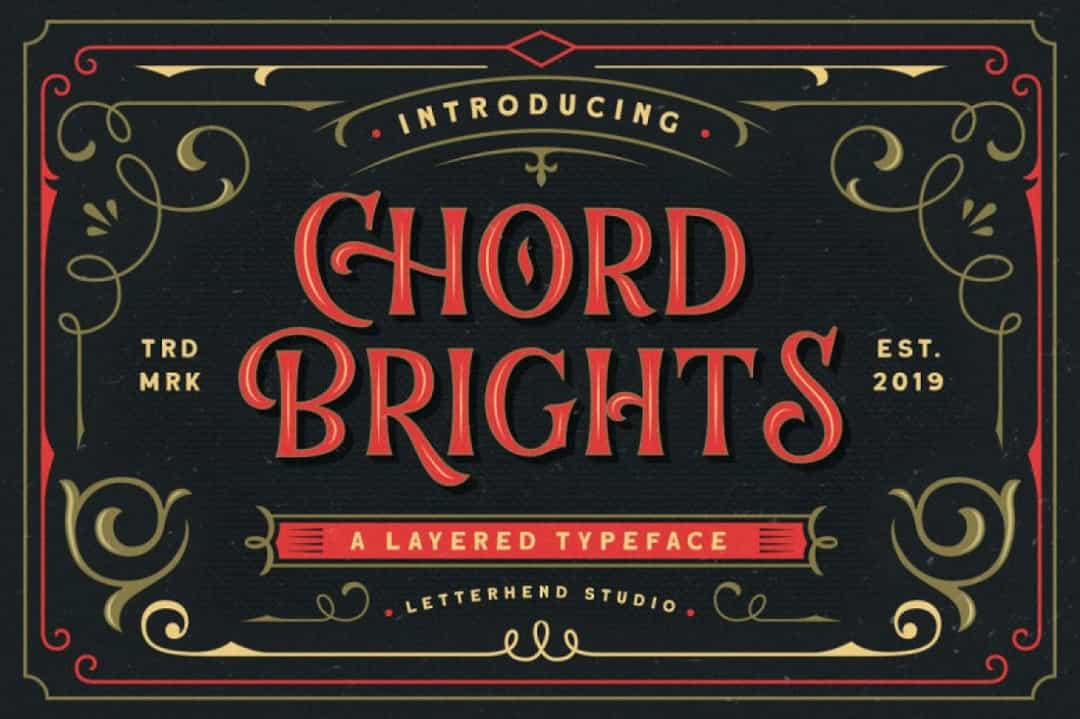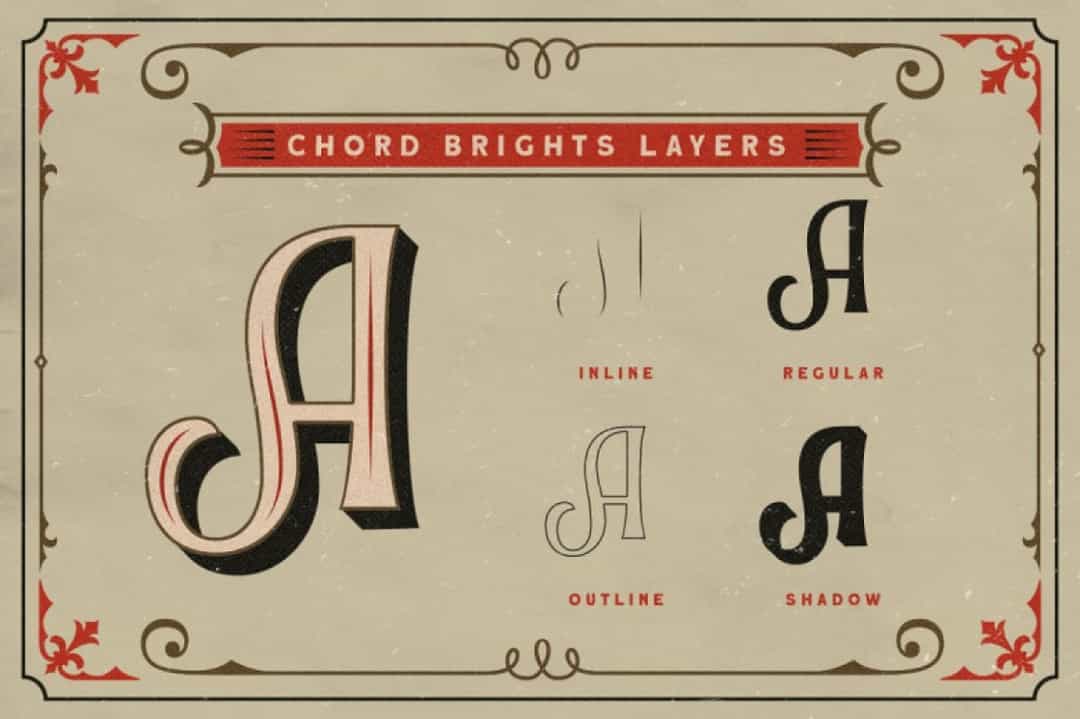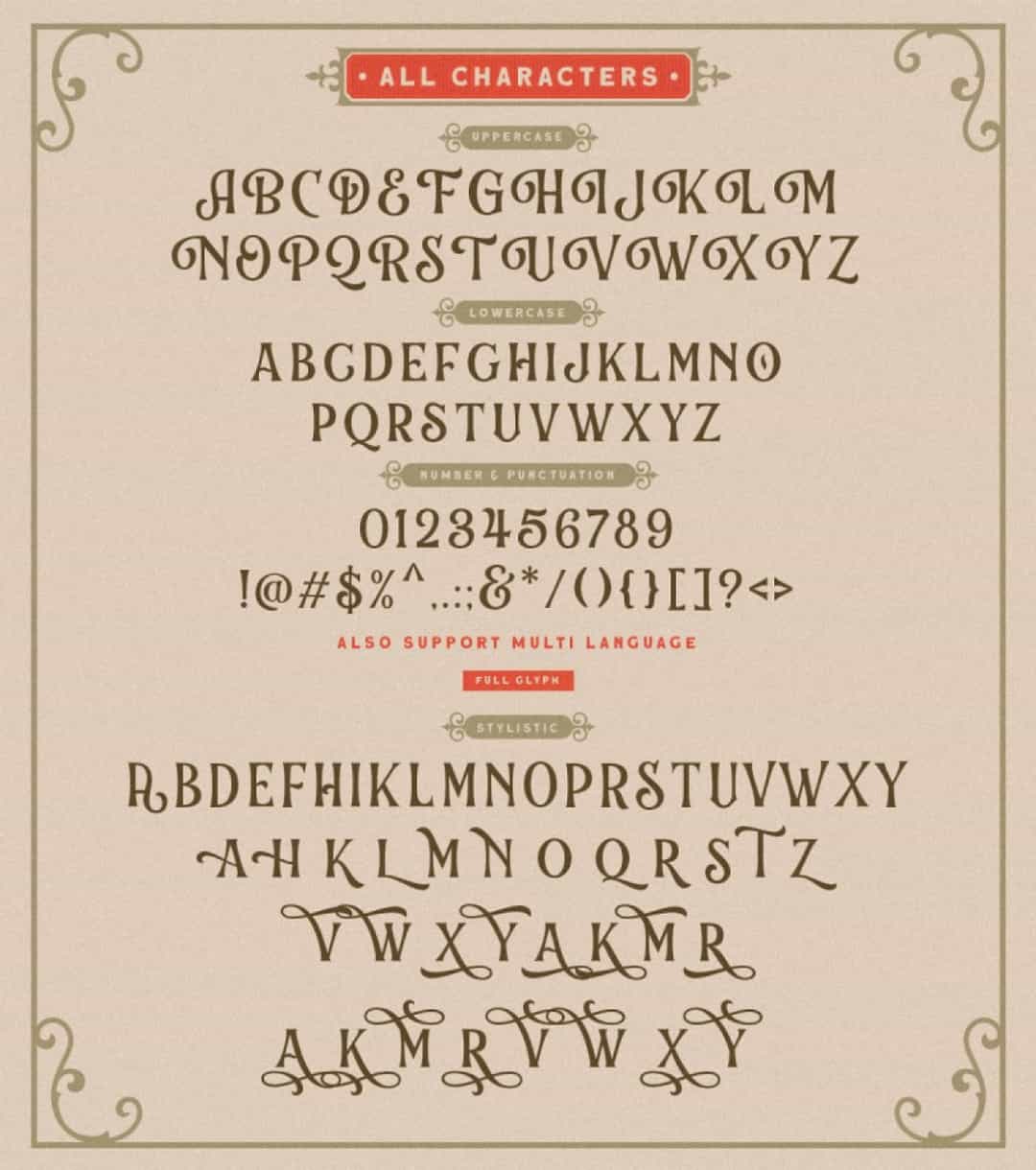
Chord Brights Font
Chord Brights Display Font is a stand-out typeface featuring four layers (inline outline, regular and shadow). This font boasts a nostalgic design due to its design elements; making it suitable for projects featuring retro or vintage aesthetics. In addition, we’ve added an ornament bonus available with drag and drop functionality!